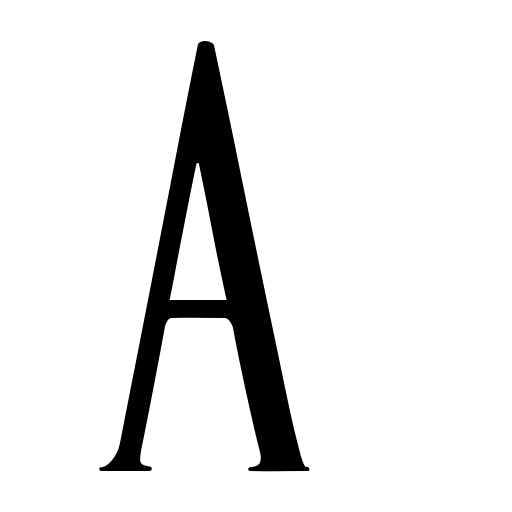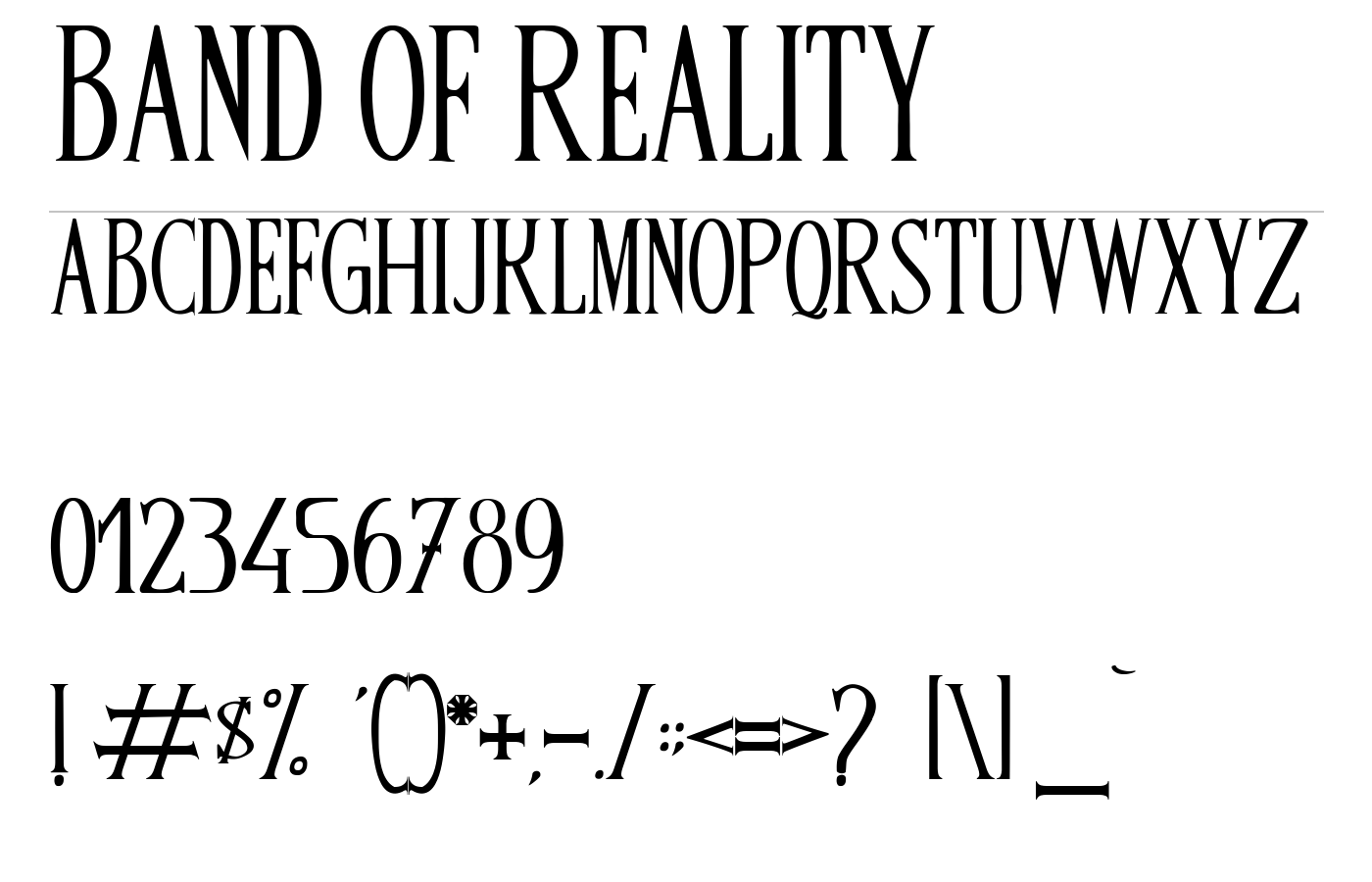
Band of Reality is a tall, narrow serif font featuring high contrast between thick and thin strokes, giving it an elegant yet slightly quirky character. Its sharp serifs and unique letterforms create a distinct vintage feel, making it ideal for headlines, logos, or branding that seeks a sophisticated, dramatic look with a touch of personality.
BAND OF REALITY Font
About BAND OF REALITY Font